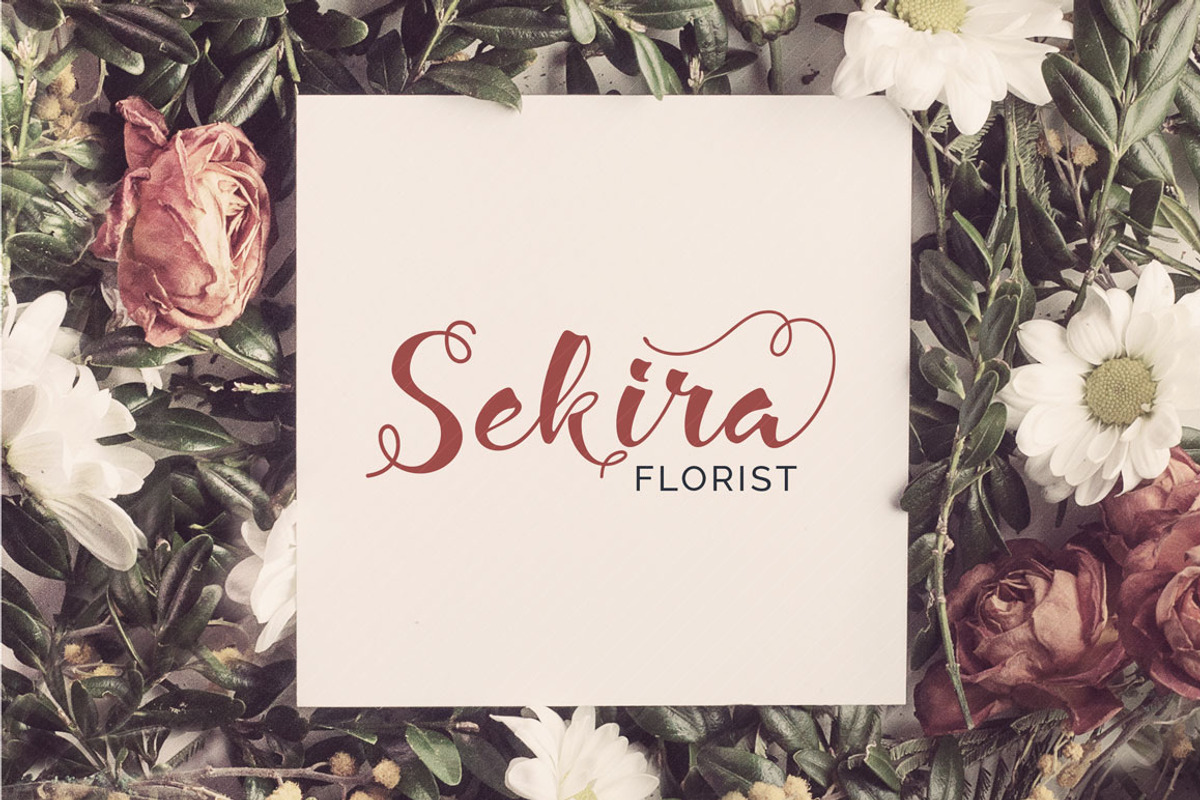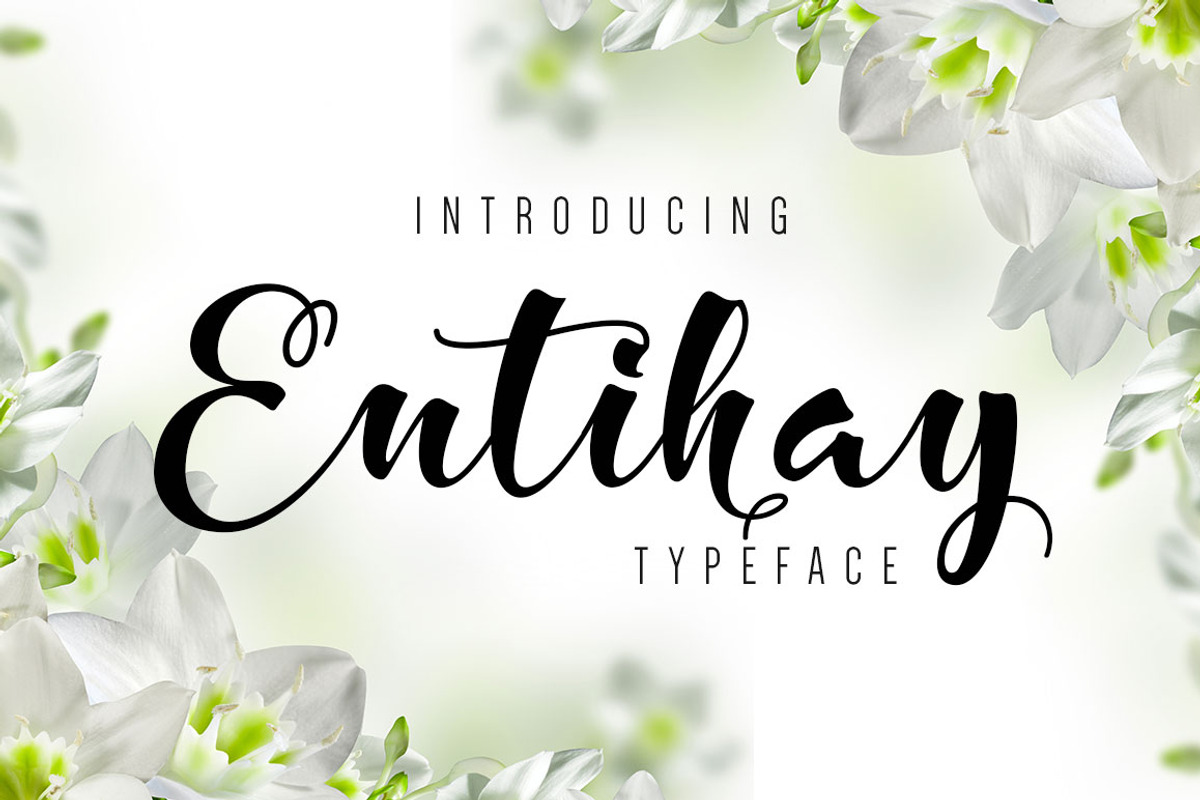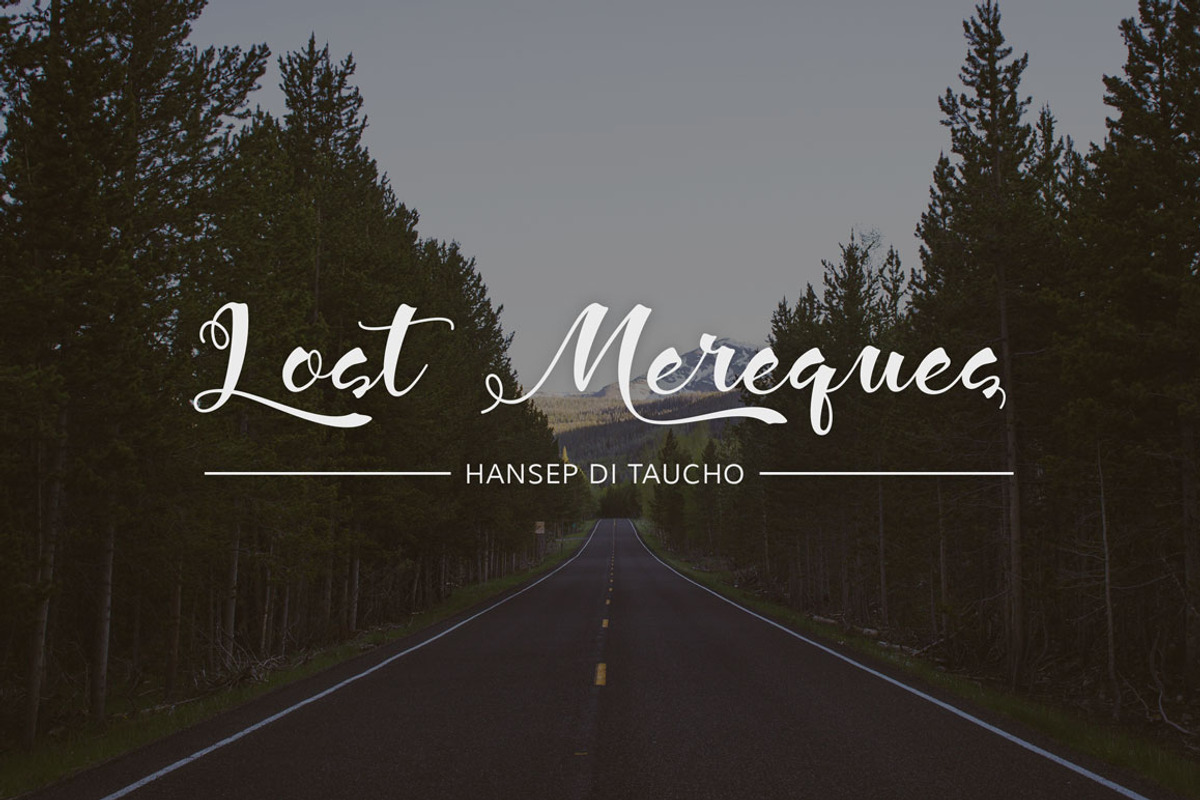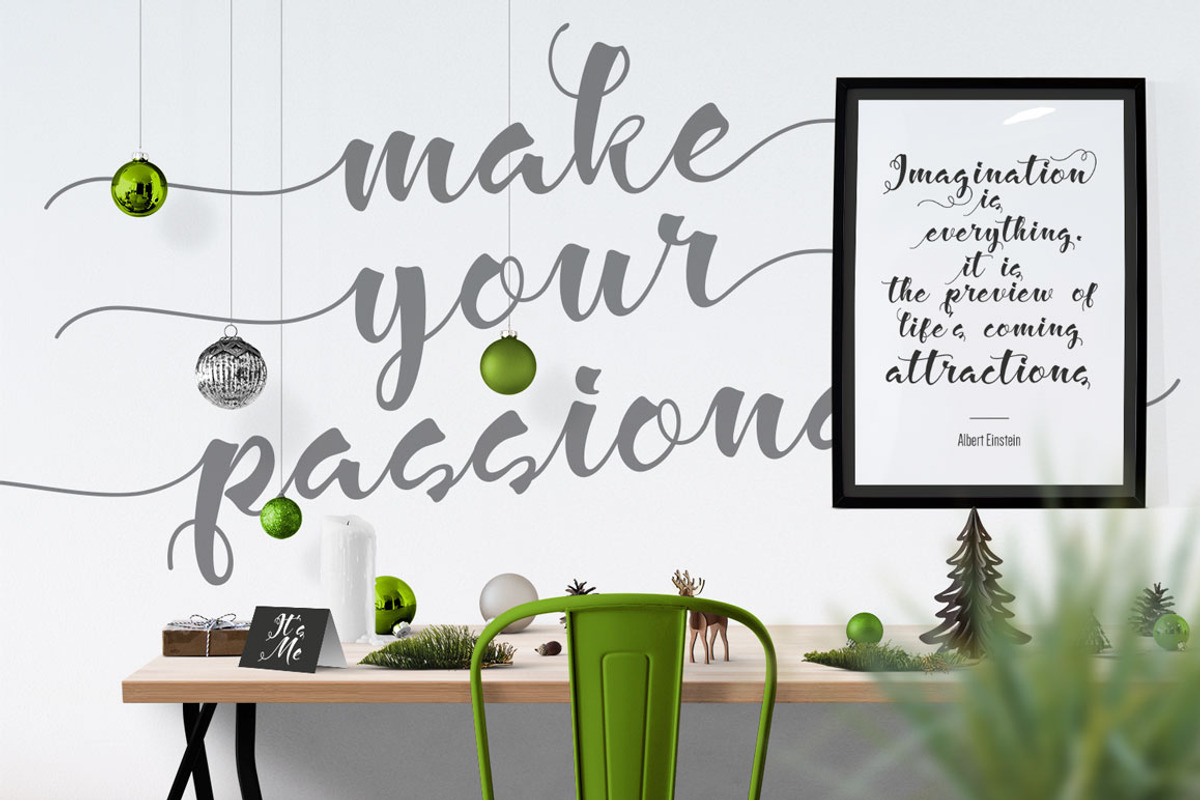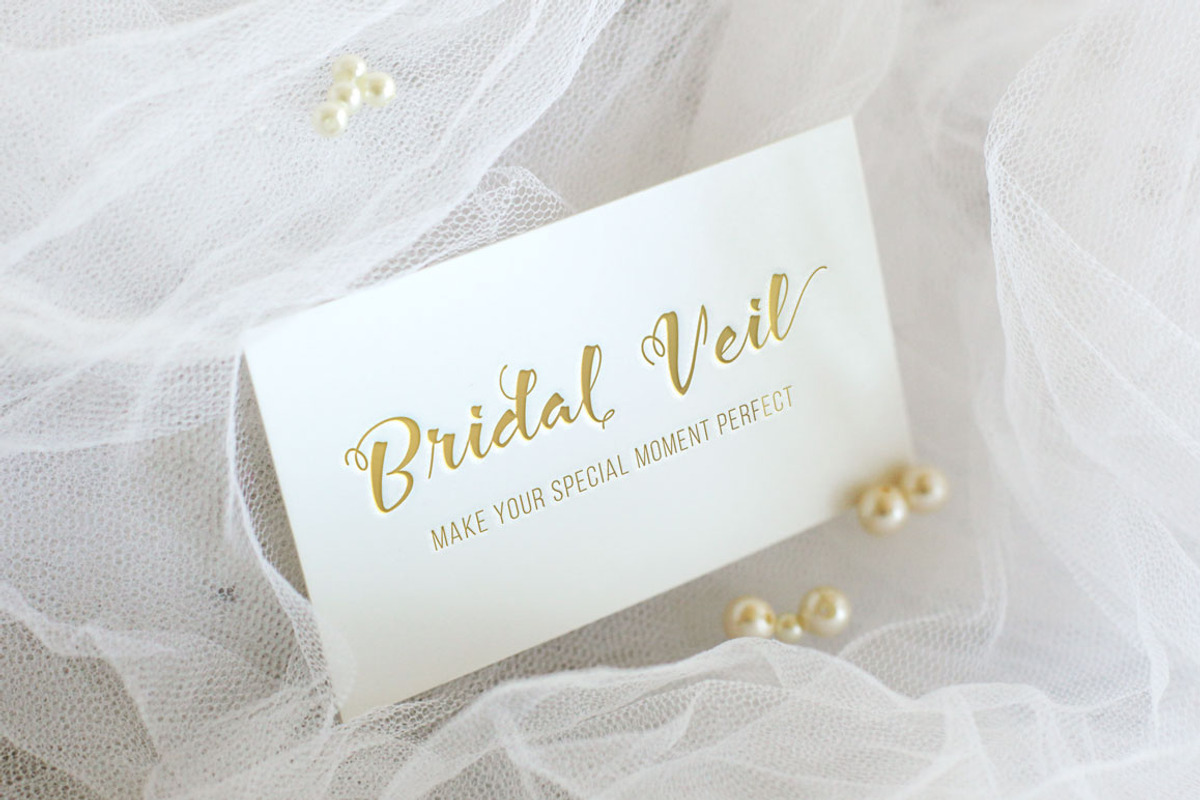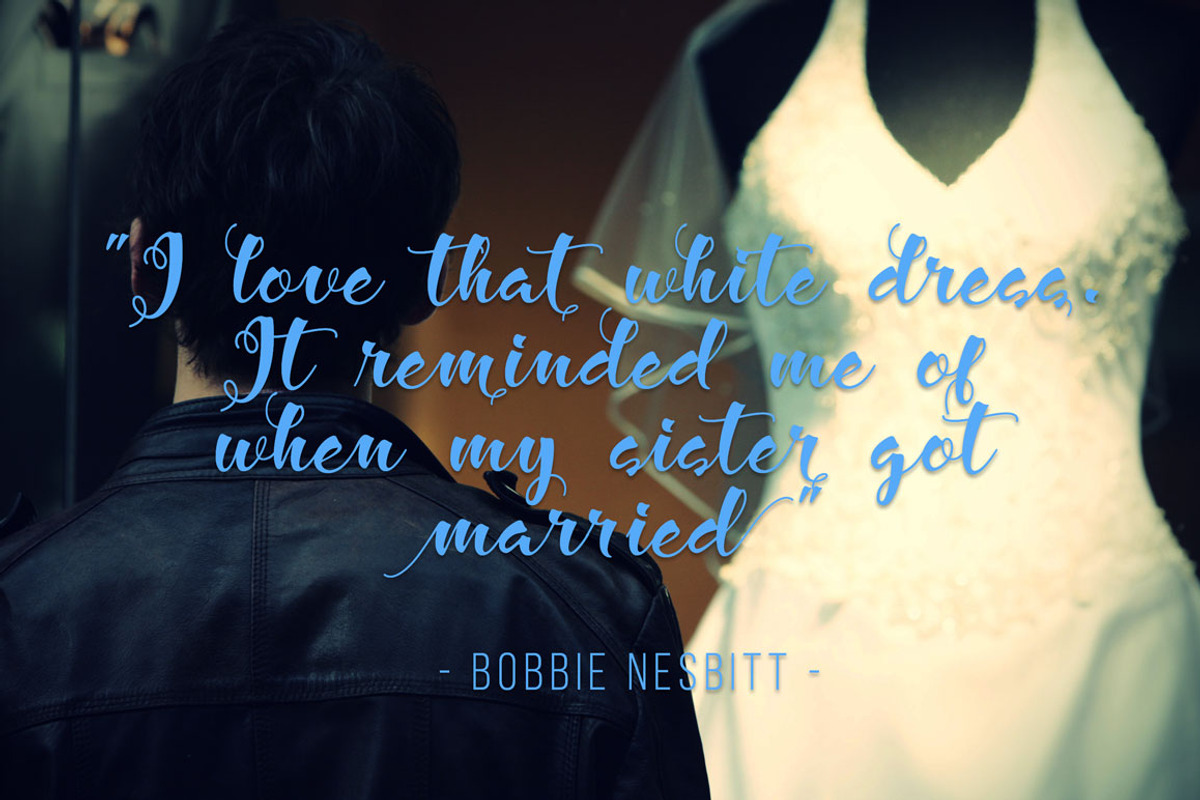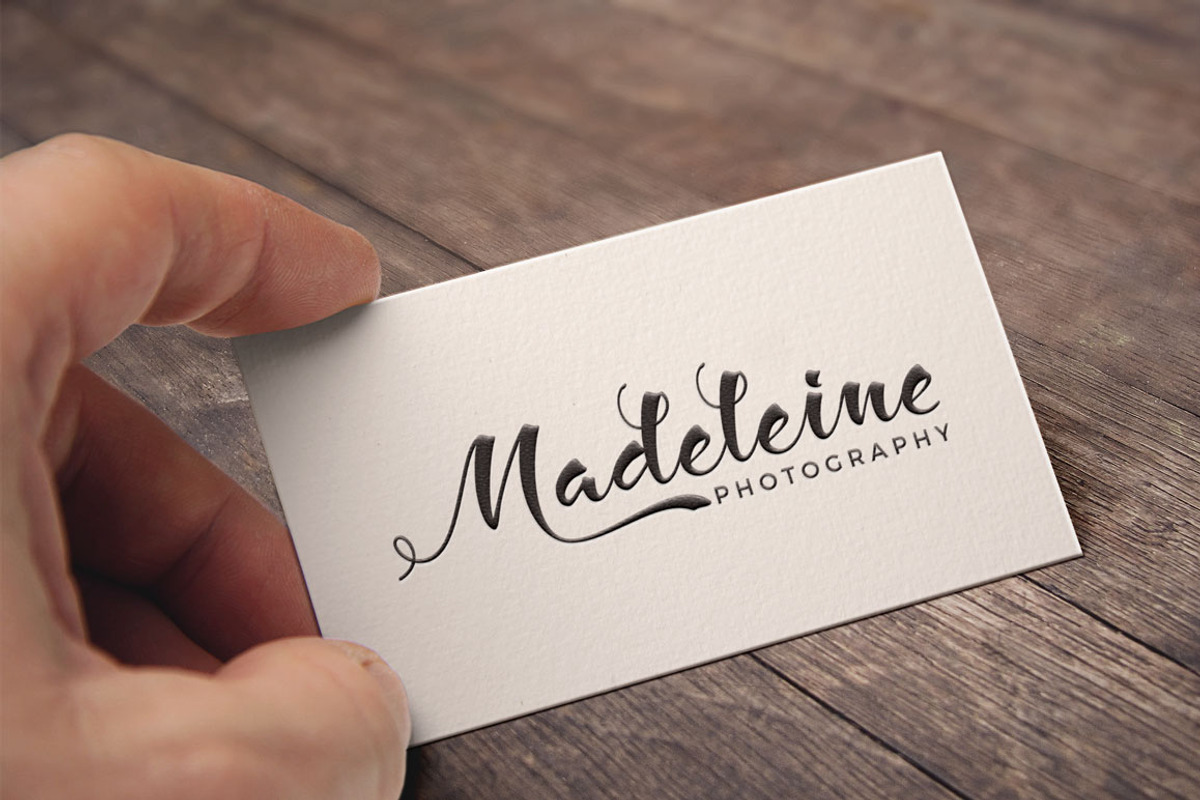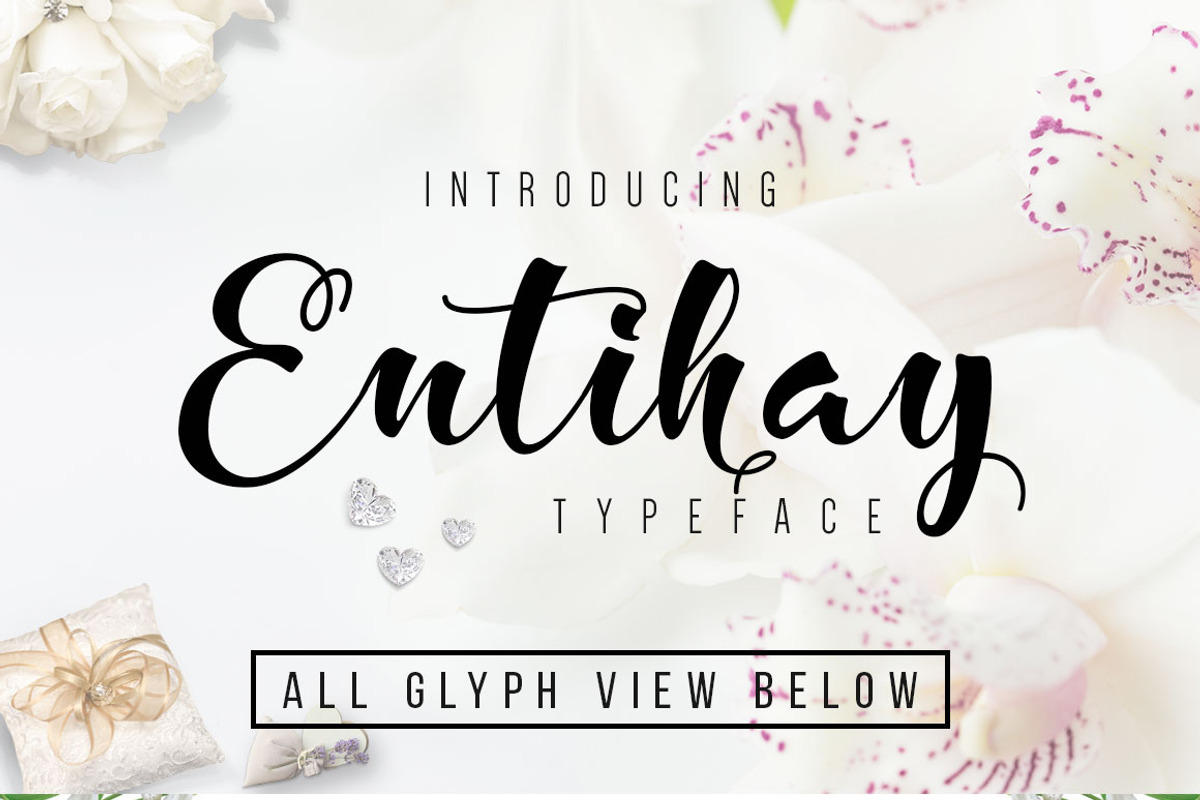
Entihay Typeface
Entihay Typeface by banks is a font selected for branding, posters, packaging, typography.
- Standard ligatures
- Stylistic sets
- Swash
Why Entihay Typeface is worth a look
Entihay Typeface by banks fits naturally into Branding, posters, packaging, typography.